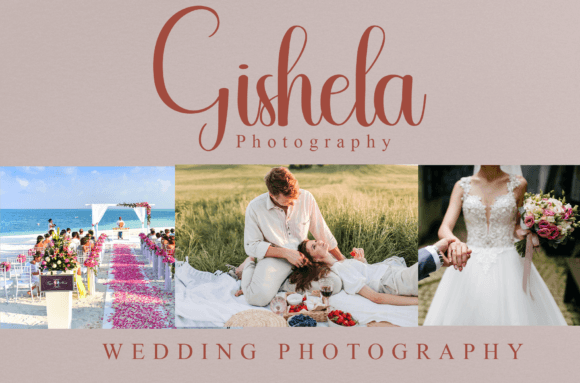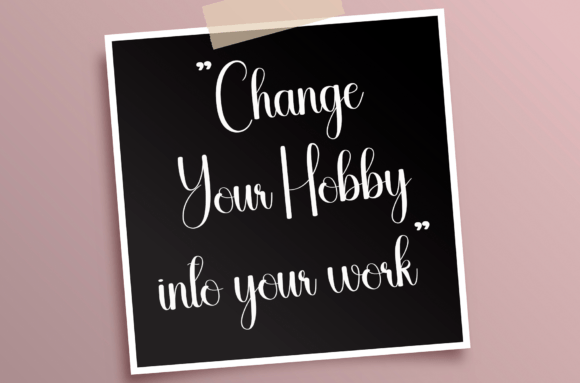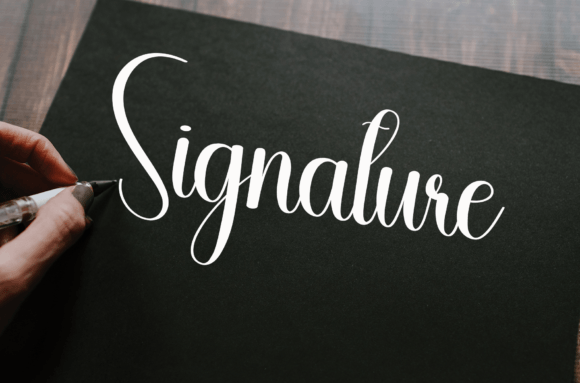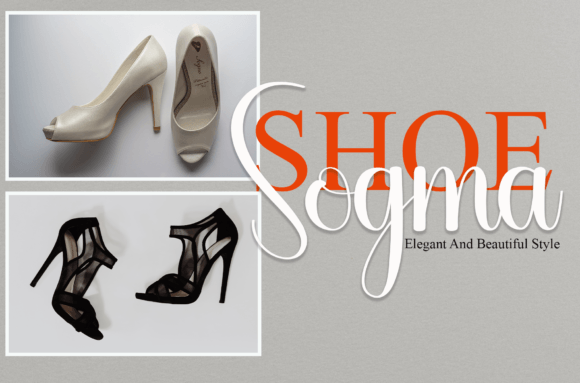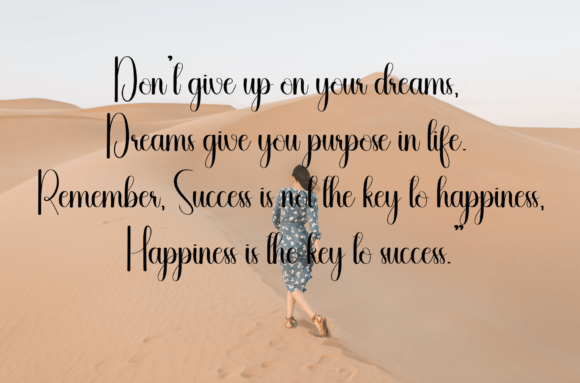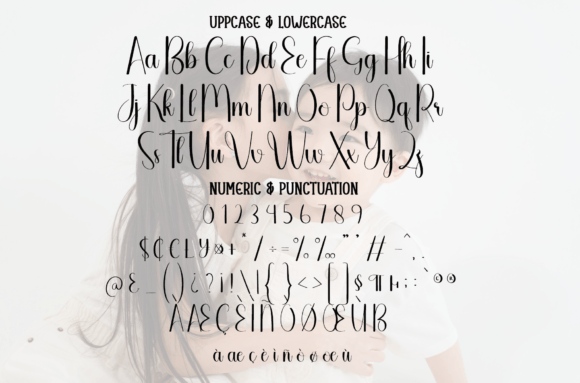
Introducing Brother Font: The Perfect Handwritten Font for Your Designs
Are you looking for a font that can add a touch of warmth and personality to your designs? Look no further than Brother Font, a sweet and friendly handwritten font that’s perfect for a variety of projects. In this article, we’ll take a closer look at Brother Font, its features, and how you can use it to elevate your designs.
What is Brother Font?
Brother Font is a beautiful, handwritten font that’s designed to bring a sense of freshness and neatness to your designs. With its smooth, flowing lines and rounded edges, this font is ideal for creating a warm and inviting atmosphere in your projects. Whether you’re designing wedding invitations, greeting cards, or any other type of project that requires a personal touch, Brother Font is the perfect choice.
Key Features of Brother Font
So, what makes Brother Font so special? Here are some of its key features:
- Handwritten style: Brother Font has a beautiful, handwritten style that’s perfect for creating a personal and intimate feel in your designs.
- Fresh and neat: This font is designed to be fresh and neat, making it perfect for projects that require a clean and modern look.
- Versatile: Brother Font is highly versatile, making it suitable for a wide range of projects, from wedding invitations to social media graphics.
- Easy to read: Despite its handwritten style, Brother Font is easy to read, making it perfect for projects that require a lot of text.
Uses for Brother Font
So, what can you use Brother Font for? The possibilities are endless! Here are some ideas to get you started:
- Wedding invitations: Brother Font is perfect for creating beautiful, custom wedding invitations that will set the tone for your special day.
- Greeting cards: Whether you’re creating birthday cards, thank-you cards, or holiday cards, Brother Font is a great choice.
- Social media graphics: Add a personal touch to your social media graphics with Brother Font, perfect for creating engaging and shareable content.
- Branding and packaging: Use Brother Font to create custom branding and packaging that reflects your brand’s personality.
Tips for Using Brother Font
Here are some tips for getting the most out of Brother Font:
- Pair it with other fonts: Brother Font pairs well with other fonts, so don’t be afraid to experiment with different combinations.
- Use it in combination with images: Brother Font looks great when used in combination with images, so try pairing it with your favorite photos or illustrations.
- Experiment with colors: Brother Font looks great in a variety of colors, so don’t be afraid to experiment with different color schemes.
In conclusion, Brother Font is a beautiful, handwritten font that’s perfect for adding a touch of warmth and personality to your designs. With its fresh and neat style, this font is ideal for a wide range of projects, from wedding invitations to social media graphics. Whether you’re a designer or a crafter, Brother Font is a great choice for anyone looking to add a personal touch to their designs.